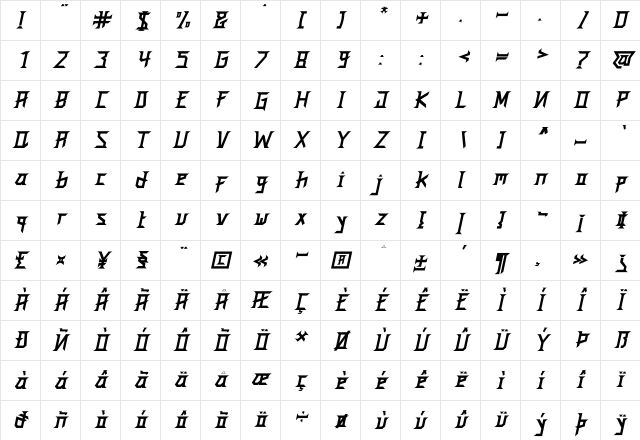
Western Monttero Italic echoes the hand-painted signage and woodblock typography of the American frontier, with a warm, rugged personality. The slanted form adds forward momentum and visual energy.
Font Pairing: Combine Western Monttero Italic with a simple slab or neutral sans - period-accurate companions reinforce the vintage feel without competing for attention.
Pro Tip: Use Western Monttero Italic for short, impactful bursts of text - it shines in poster headlines and product names rather than extended copy.